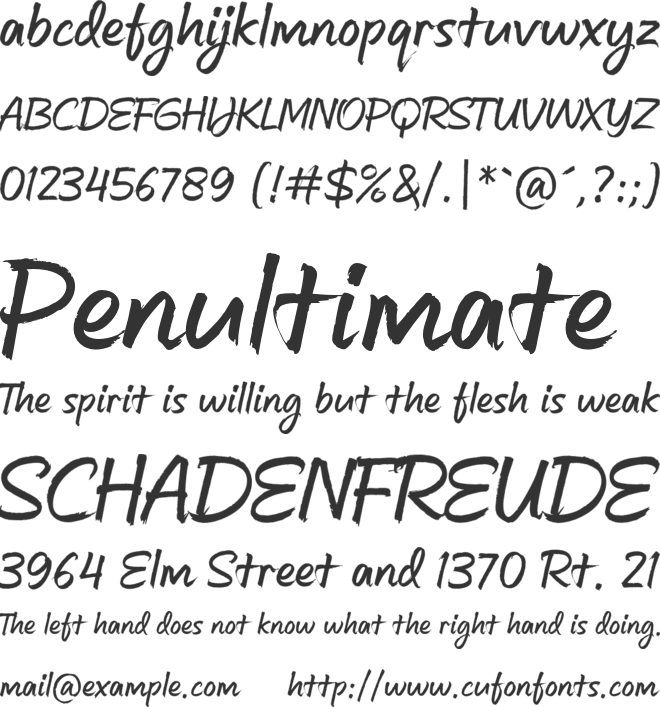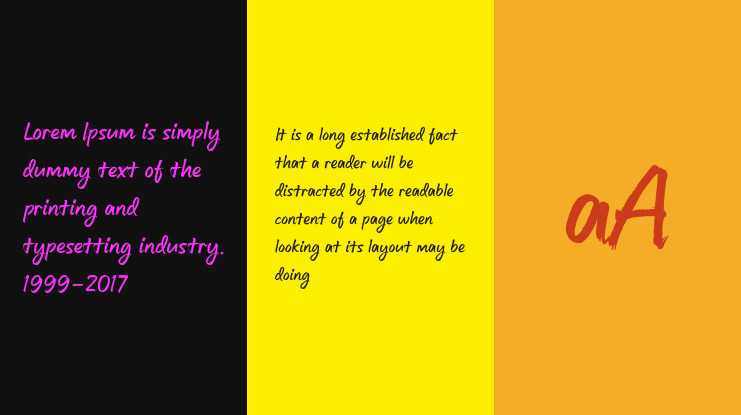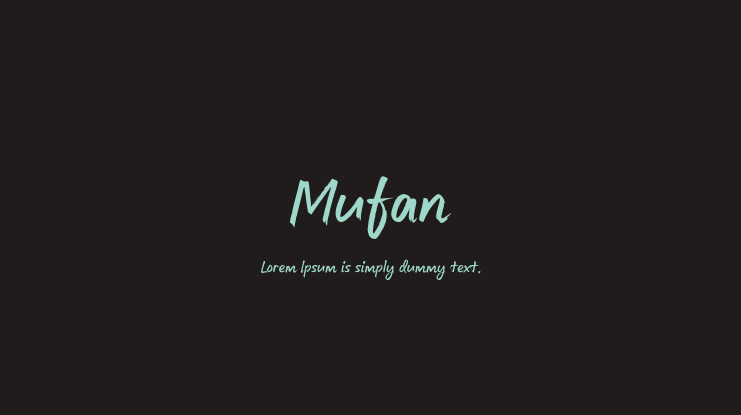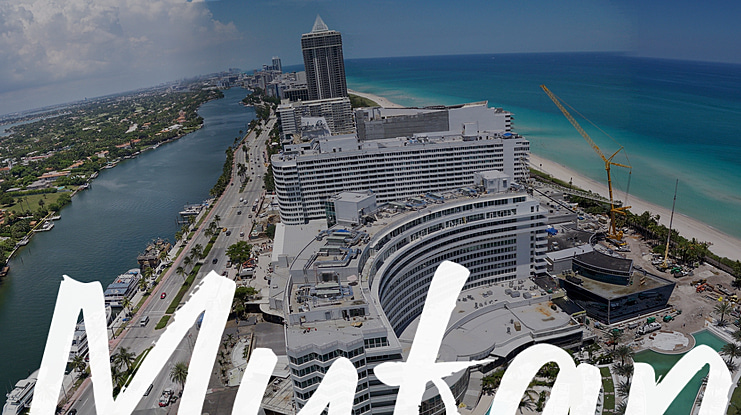
Mufan Font
Mufan PFS is a Typeface project with a simple concept that wants to emphasize readability and can be used in almost anything. Through this idea we're aiming to give the impression of handwriting, retro, vintage and modern.
To make it work well in various design conditions. Mufan PFS comes with basic glyphs and has been specially designed to work well in uppercase only, lowercase only, or in sentences, and titles.